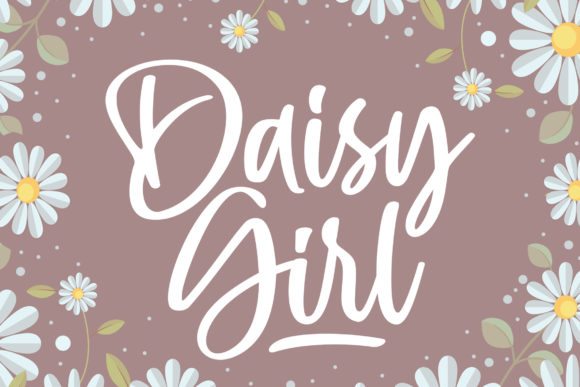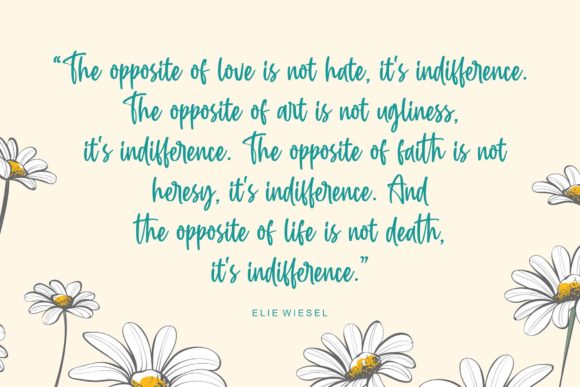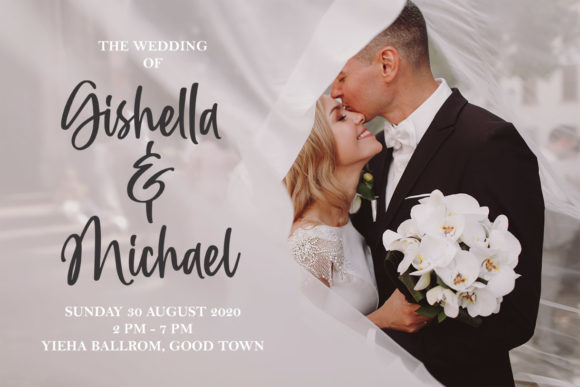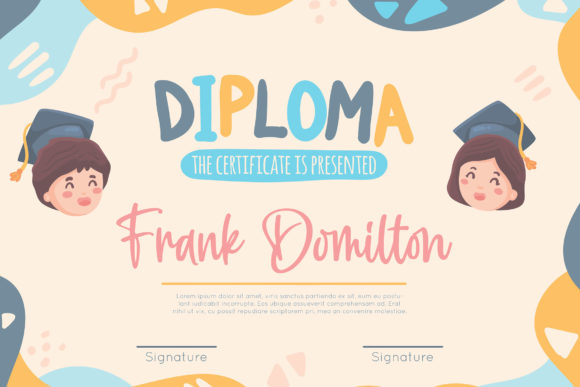
Daisy Girl Font: Cute Handwritten Font for Cricut & Crafts
About the Daisy Girl Font
Unleash your creativity with Daisy Girl Font, a versatile font perfect for a wide range of applications. Daisy Girl is a friendly and flowing handwritten font. Use it to make your ideas even more realistic and create spectacular designs!
Daisy Girl’s friendly, flowing style is ideal for projects requiring a touch of warmth and personality. It works exceptionally well in headlines, short body copy, invitations, and social media graphics. Consider it for branding projects targeting a female demographic or those emphasizing handmade aesthetics. Avoid using it for large blocks of text or UI elements where readability is paramount.
Its informal nature pairs well with clean sans-serif fonts like Open Sans for balance, or a more geometric sans-serif like Futura for a modern contrast. For a touch of playful sophistication, consider pairing it with a delicate script font.
Daisy Girl’s overall personality is cheerful and approachable, making it perfect for brands that value approachability and a sense of handcrafted charm.
Daisy Girl Font Usage Examples
Daisy Girl Font Example